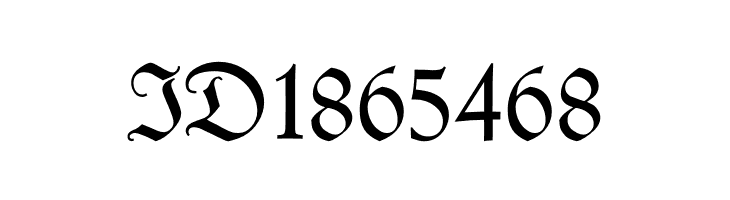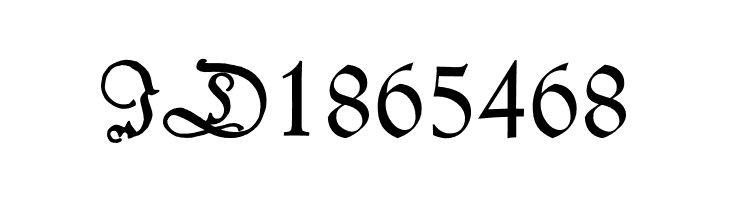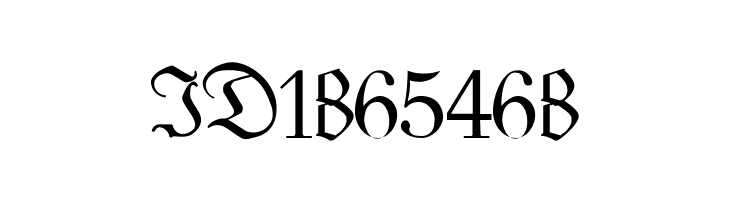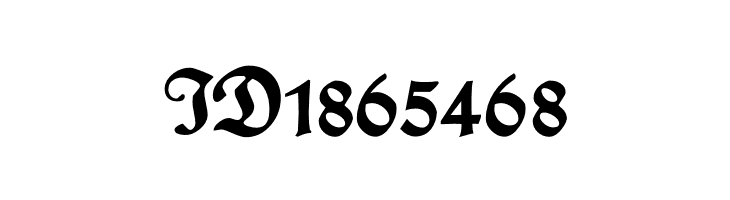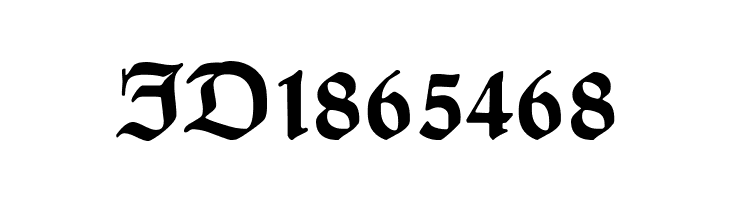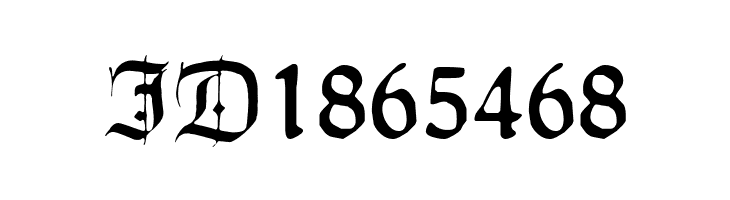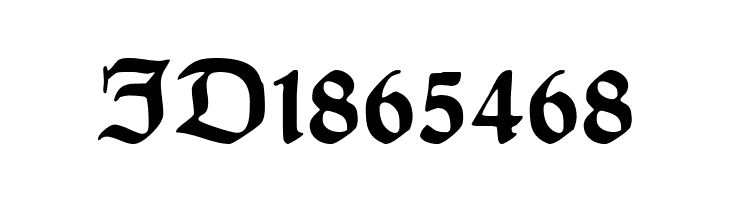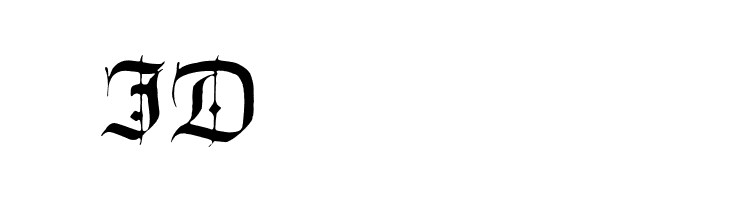
A traditional blackletter font with intricate, ornate letterforms.
A traditional blackletter font with ornate, medieval-inspired letterforms.
A traditional blackletter font with intricate detailing and historical elegance.
An intricate Blackletter font with bold, angular letterforms and ornate detailing.
A bold, decorative blackletter font with intricate details and historical flair.
A traditional blackletter font with intricate detailing and a historical aesthetic.
An ornate Blackletter font with intricate, bold letterforms and dramatic flourishes.
A decorative blackletter font with shadow effects, offering a classic and dimensional look.
A bold, decorative blackletter font with intricate contours and a gothic style.
A traditional Blackletter font with ornate, angular letterforms and high contrast.
A traditional Blackletter font with ornate, angular letterforms.
A modern blackletter font with ornate and intricate letterforms.
A bold, shadowed blackletter font with intricate details and a gothic aesthetic.
A bold, intricate Blackletter font with ornate, angular letterforms.
A decorative blackletter font with intricate, angular letterforms and historical elegance.
A bold, ornate blackletter font with intricate details and a historical feel.
A decorative Blackletter font with intricate flourishes and Gothic style.
An ornate Blackletter font with bold, angular strokes and decorative flourishes.
A traditional Blackletter font with ornate, angular designs and historical elegance.
A traditional blackletter font with ornate, medieval-style letterforms.
An ornate Blackletter font with intricate details and an italic style.
An ornate and decorative blackletter font with elaborate flourishes.
An ornate Blackletter font with intricate, angular designs and historical elegance.
A traditional blackletter font with ornate, angular letterforms and decorative flourishes.
An ornate and traditional font with intricate, angular characters.
A bold, ornate blackletter font with intricate gothic details.